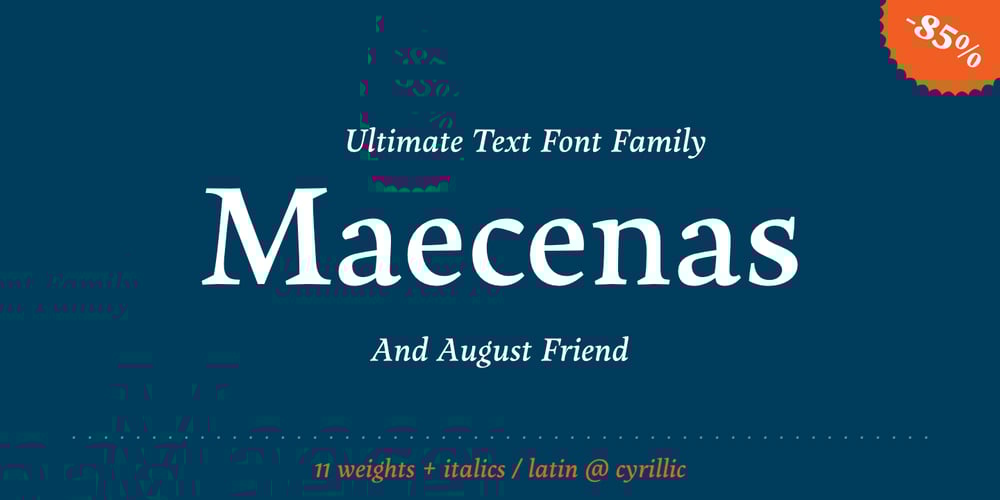
Maecenas Font Family was designed by Michał Jarociński and published by Dada Studio. Maecenas contains 22 styles and family package options. Maecenas is an elegant professional. It stands out from other typefaces due to it’s timeless style and versatility. It will add smartness to all texts, regardless of the user’s expectations. In a quick and flashy way it will make an impression on anyone, who requires from his tool character and reliability. Maecenas won’t be lost in the crowd, and thanks to it neither will you. This font, marked by chivalry, is an AUGUST friend for good and bad. Light and bold weights, due to their strong personality, are perfect for display uses. At the same time, Regulars create a harmonious structure that provides excellent legibility in long texts. Maecenas covers all latin languages and cyrillic. It contains a wide set of numerals, small capitals, fractions, ligatures and other OpenType goodies.